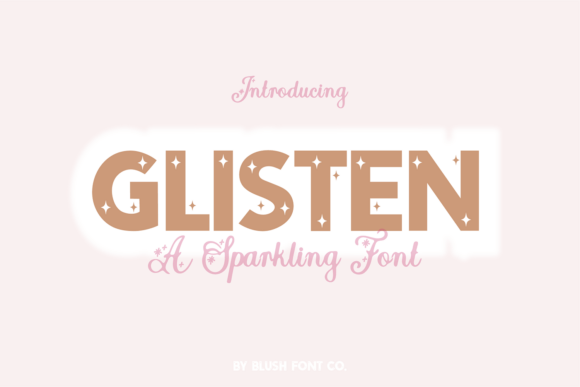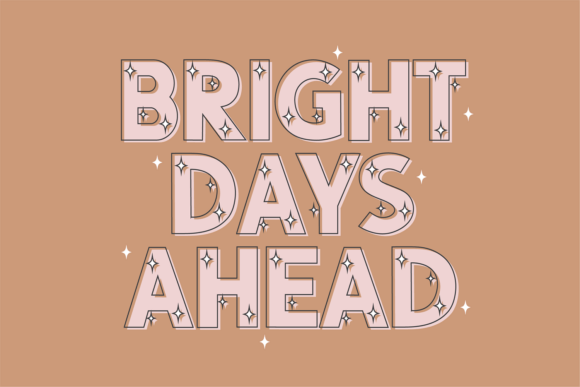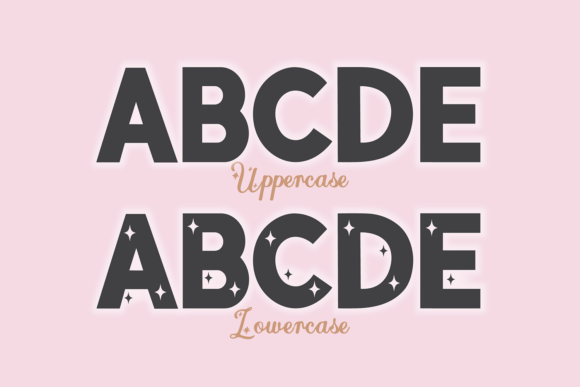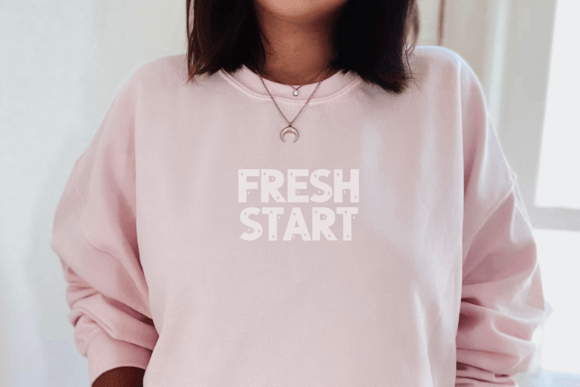
Glisten Font: A Cute Display Font for Playful & Sparkling Designs
About the Glisten Font
From logos to headlines, the Glisten Font is the perfect choice for making a lasting impression. “Glisten” is a sparkling modern stylish display font. Perfect for Christmas, New Year, or birthdays!
Uppercase characters are plain block letters without the stars.
This font is a bold display font that is perfect for social media or crafty projects. Use it for branding, crafts for decor, invitations, and more! All caps glyphs, numbers, and punctuation marks.
Glisten’s bold, uppercase-only structure makes it ideal for headlines, short impactful statements, and logos requiring a strong visual presence. It excels in branding for celebratory events, crafting businesses, or products emphasizing sparkle and modernity. Avoid using Glisten for body text or lengthy paragraphs; its design isn’t optimized for readability in extended passages or user interfaces.
Glisten projects a confident, celebratory personality. It’s energetic and eye-catching, perfect for brands wanting to convey a sense of fun and modern style.
Glisten Font Usage Examples
Glisten Font Example